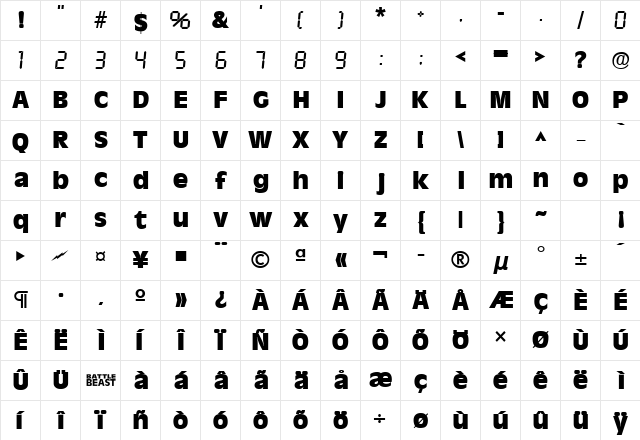
Battle Beast Bold
Design Context for Battle Beast Typeface
Battle Beast takes a measured approach to typography — its balanced proportions and neutral character make it a reliable workhorse for both digital and print work. The heavy weight commands attention and anchors typographic hierarchies.